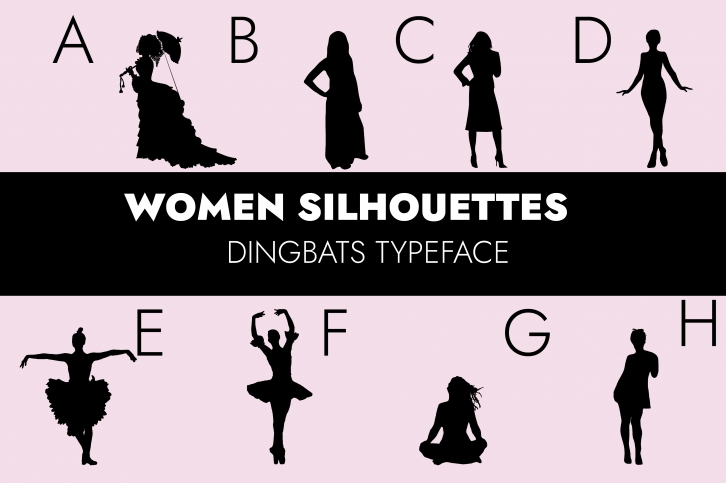
Women Silhouettes 2.0 is a dingbats typeface specially designed for you to use in any of your projects. Masterfully designed to become a true favorite, this font has the potential to bring each of your creative ideas to the highest level!